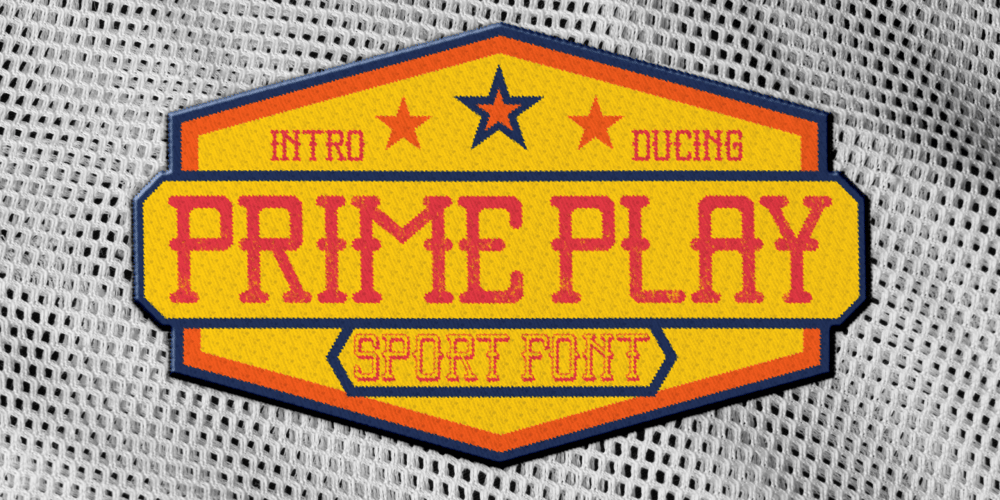
Prime Play
Prime Play font
Prime Play Font Family was designed by Putra Novembria Candra Kusuma and published by Putracetol. Prime Play contains 7 styles and family package options. Introducing Prime Play, a dynamic and bold sport font that’s designed to make an impact. Perfect for any athletic or competitive project, Prime Play combines a strong slab serif structure with a distinctive multi-style appearance, ensuring your text stands out with power and precision. Its robust and angular design captures the energetic spirit of sports, making it an ideal choice for sports logos, team jerseys, and motivational posters. Whether you’re working on a branding project, crafting eye-catching merchandise, or designing a bold event poster, Prime Play delivers a professional and energetic vibe that’s sure to elevate your designs.This versatile font doesn’t just stop at sports-related projects. Prime Play’s clean and structured form also makes it suitable for a variety of other uses like packaging, editorial design, and business branding. Its retro-inspired yet modern look can bring a sense of nostalgia while remaining contemporary, perfect for both print and digital applications. The combination of solid letters with subtle detailing offers a unique balance of strength and style. With Prime Play, you can create bold, memorable designs that capture attention and convey a sense of athletic excellence and drive.